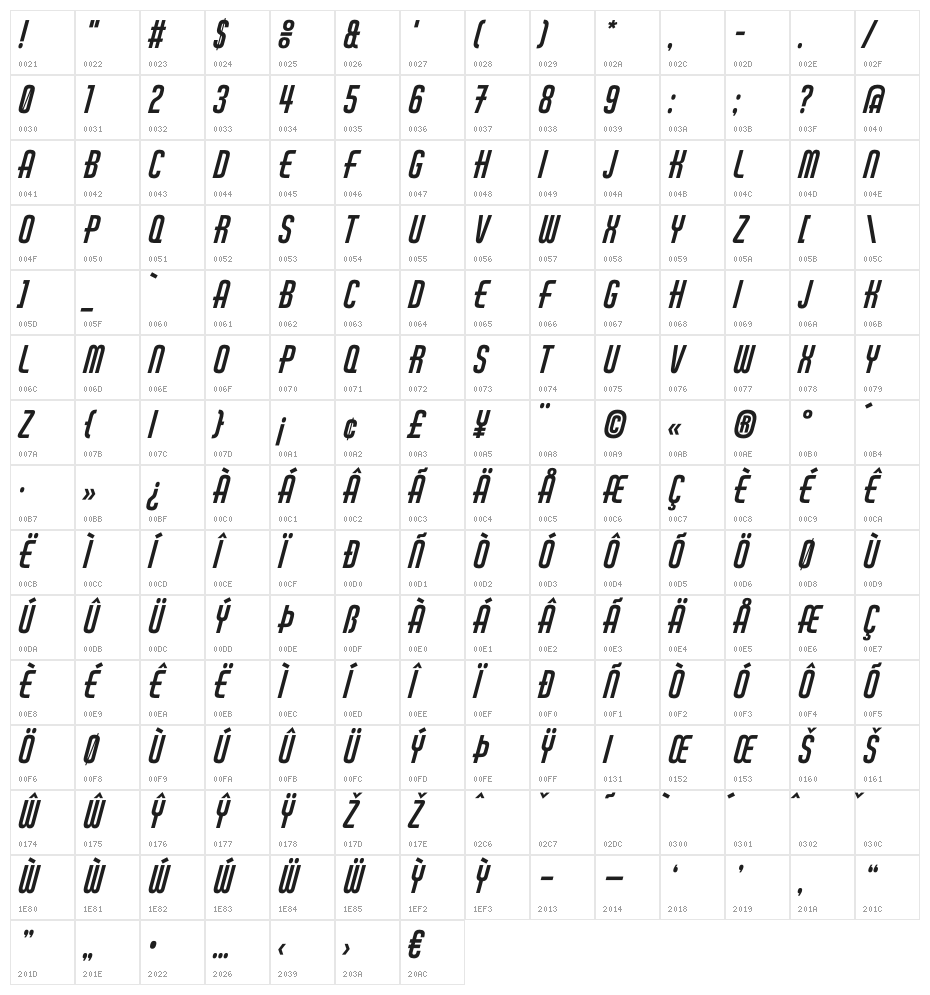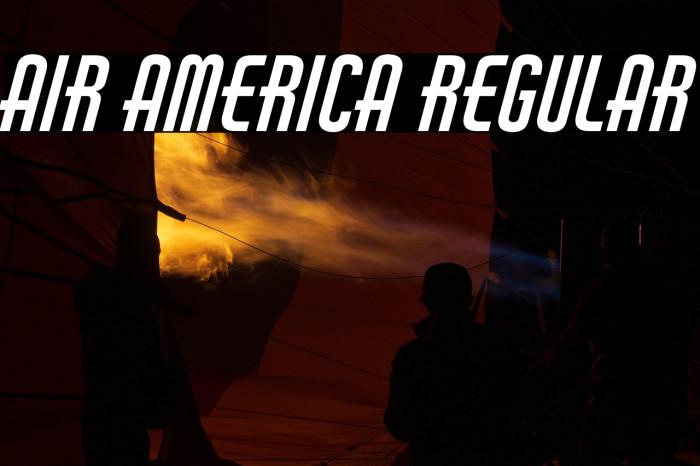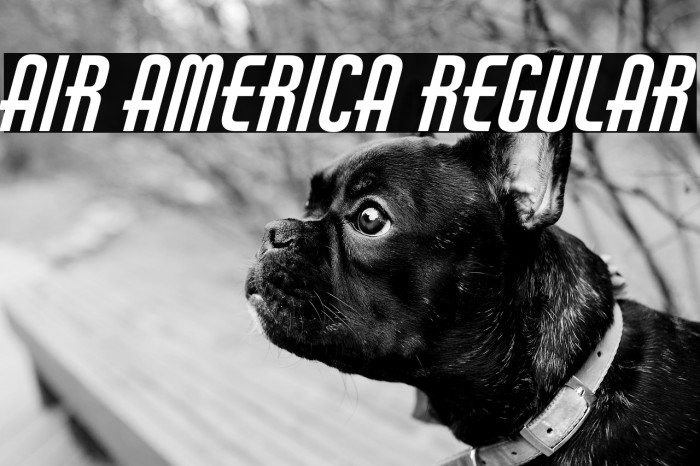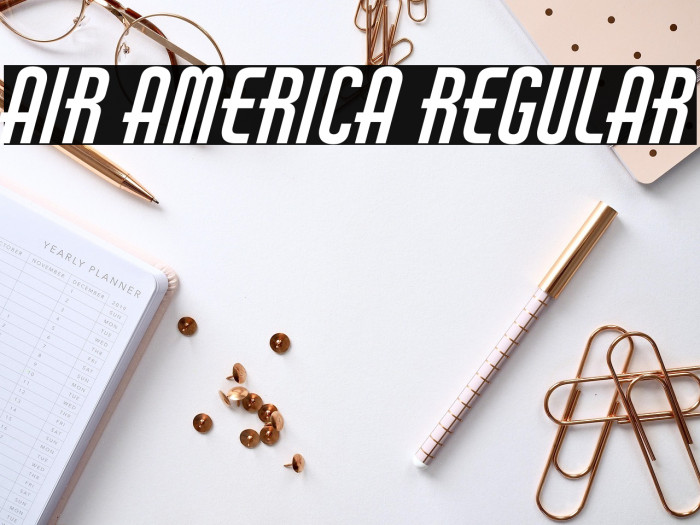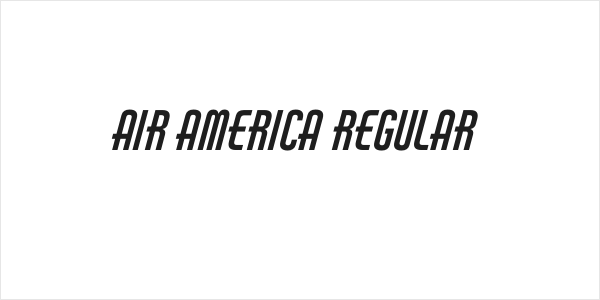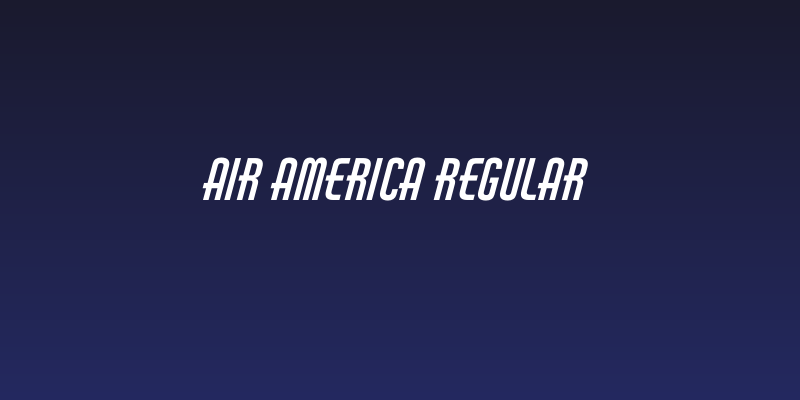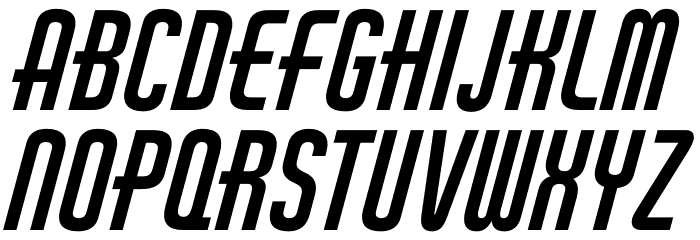
Air America Regular Font
Air America Regular Description
This font exhibits a bold, dynamic style with a strong emphasis on vertical strokes and a slight slant, giving it a sense of motion and energy. The characters are tall and narrow, with consistent stroke widths that provide a uniform appearance. The uppercase letters are particularly striking, with sharp angles and clean lines that enhance readability. The lowercase letters maintain the same energetic style, ensuring cohesion across text. Numbers and special characters are designed with the same attention to detail, making them easily distinguishable. This font's overall aesthetic is modern and impactful, suitable for making a statement.
| Proposed Projects | Perfect for sports branding, dynamic posters, modern advertisements, and any project requiring a bold statement. |